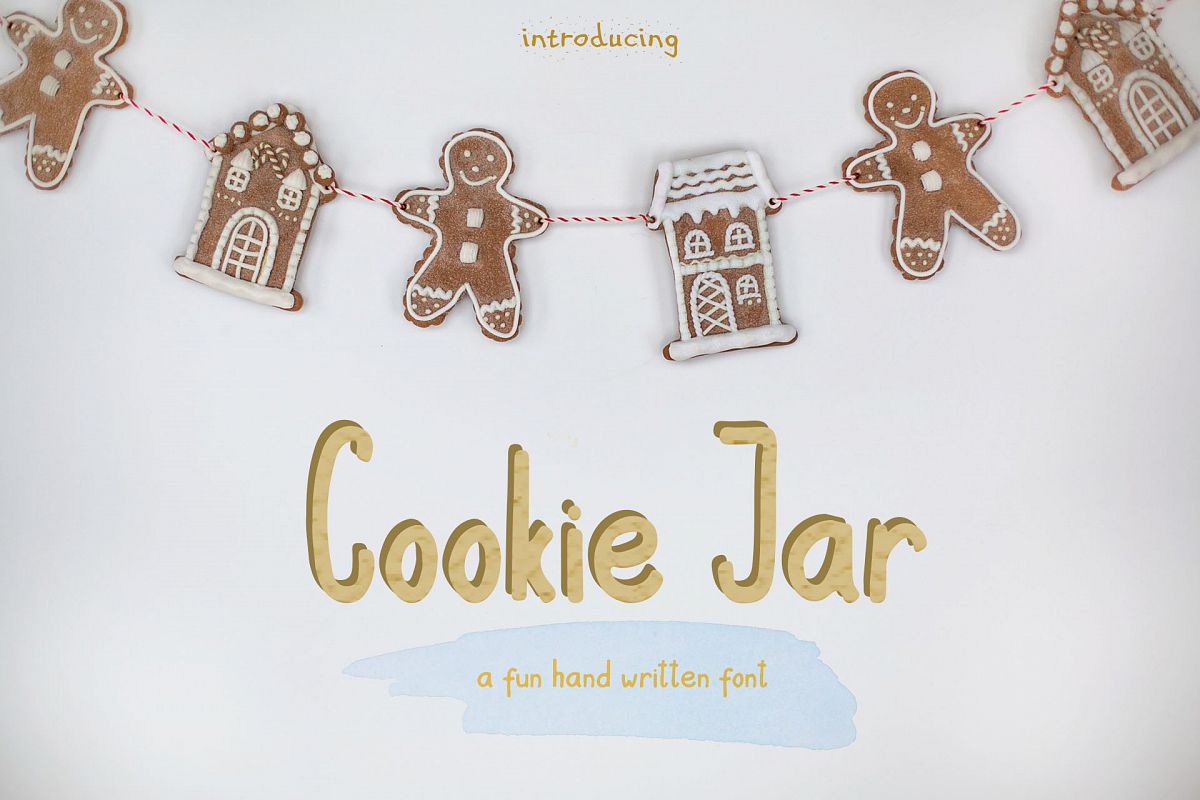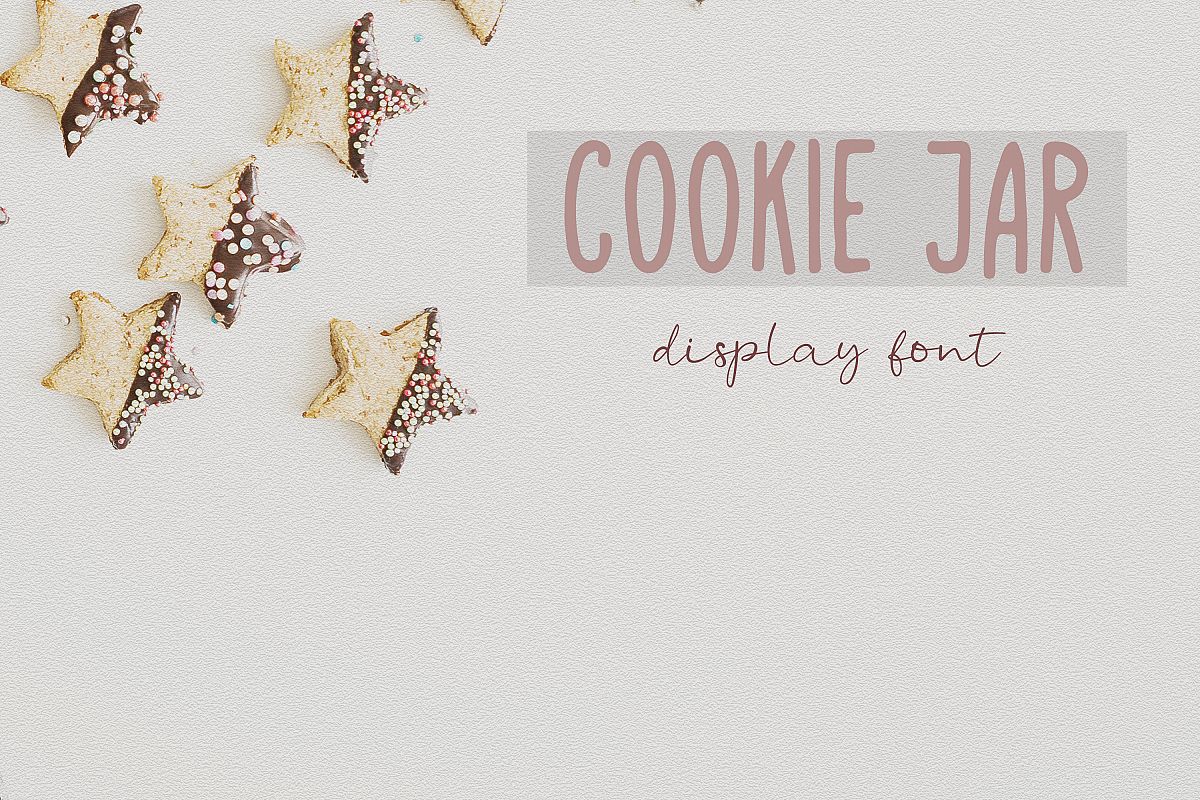
Cookie Jar font
Cookie Jar font is a fun, hand-drawn font that's perfect for greeting cards, headlines, displays, signs, and lot more! Fun and casual, with uneven letters, this font brings a dynamic vibe to your projects.